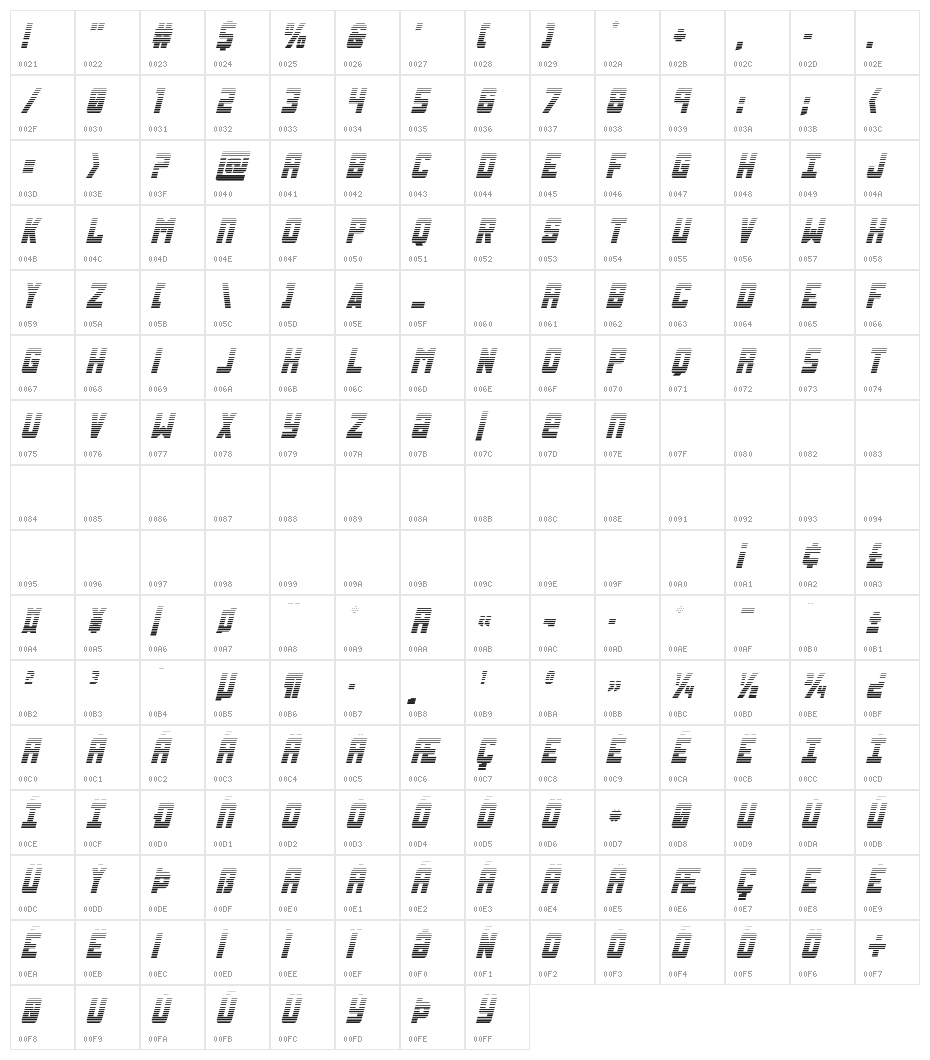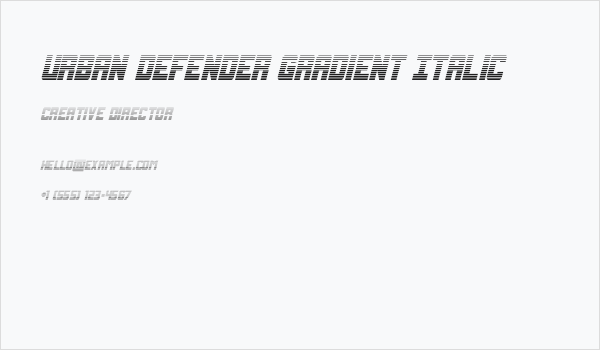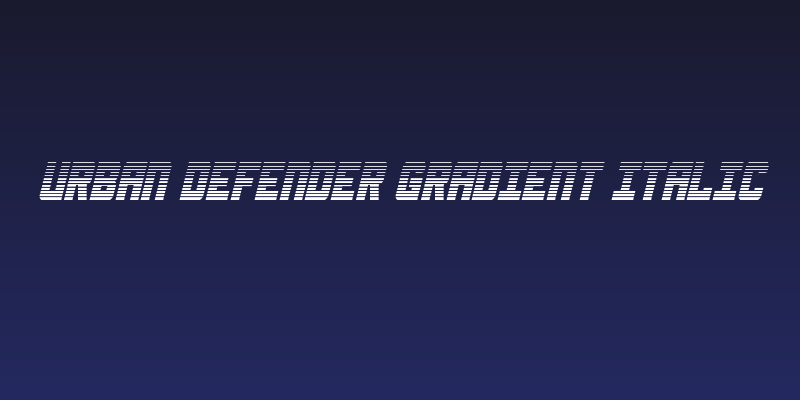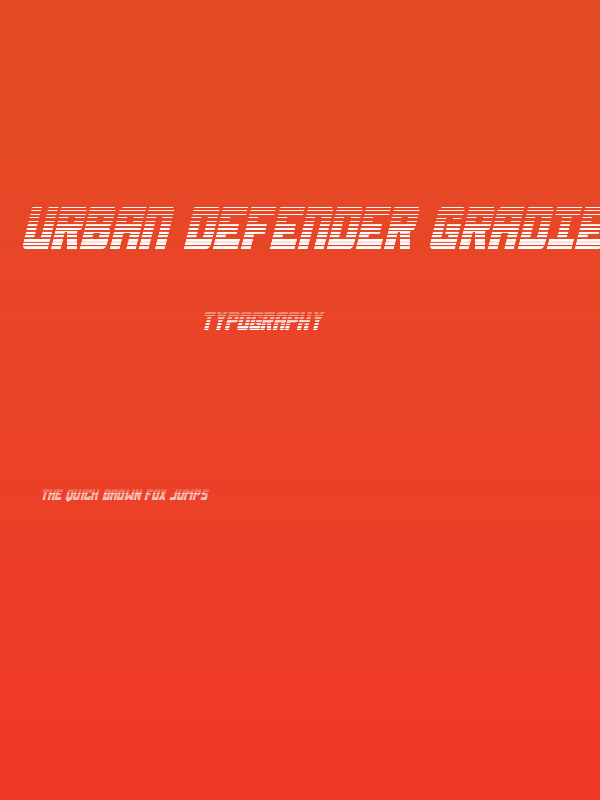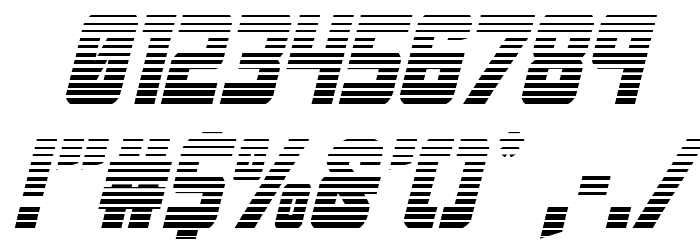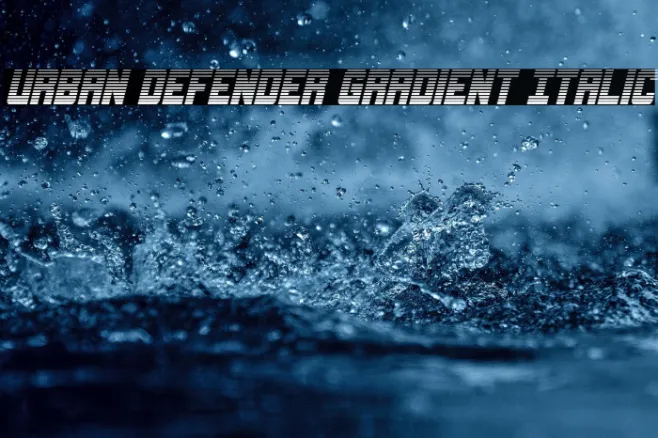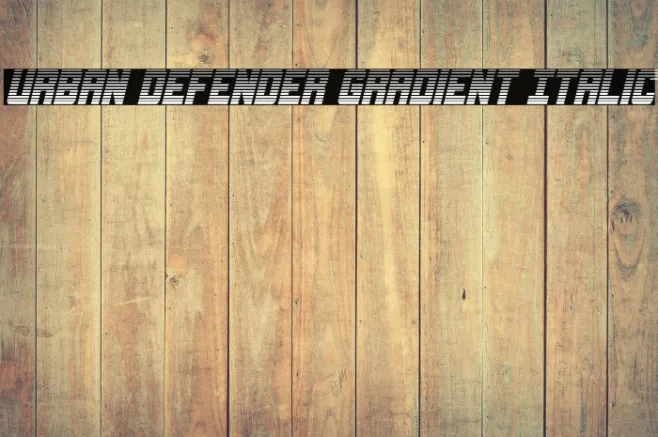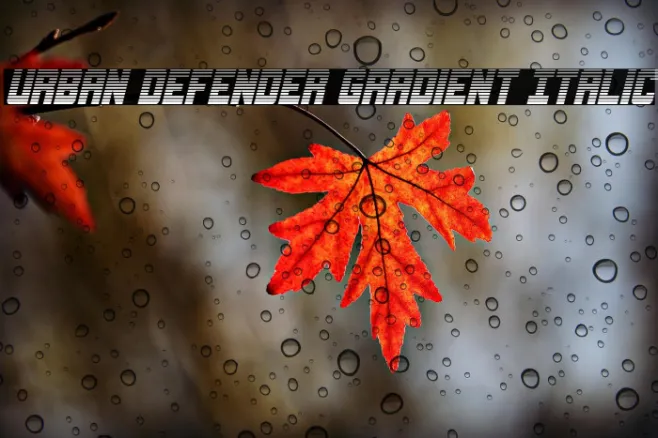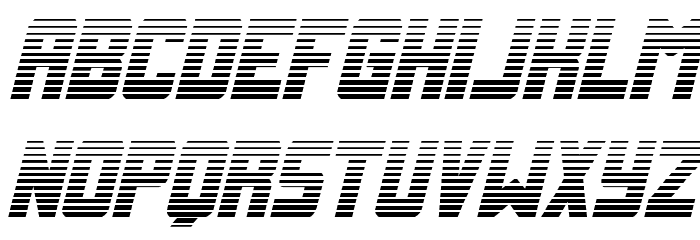
Urban Defender Gradient Italic Font
Urban Defender Gradient Italic Description
This font features a bold, futuristic design with a distinct gradient effect that gives it a dynamic and modern appearance. The characters are italicized, adding a sense of motion and speed. Each letter is composed of horizontal lines that create a striped pattern, enhancing the visual impact. The uppercase and lowercase letters maintain a consistent style, while the numbers and special characters are designed to match the overall aesthetic. This font is ideal for projects that require a strong, contemporary look with a touch of edginess.
| Proposed Projects | Ideal for sci-fi themed posters, video game titles, futuristic branding, and dynamic advertisements. |